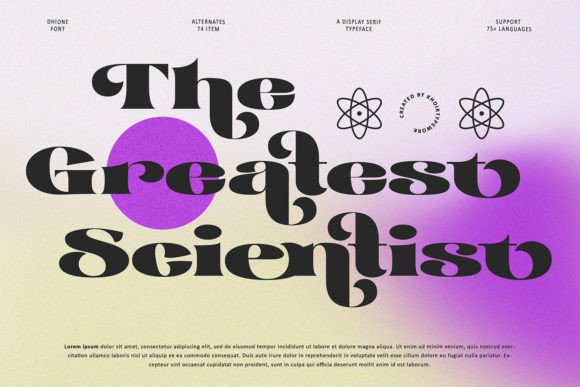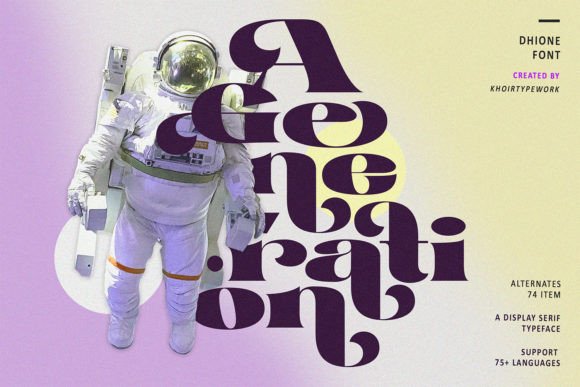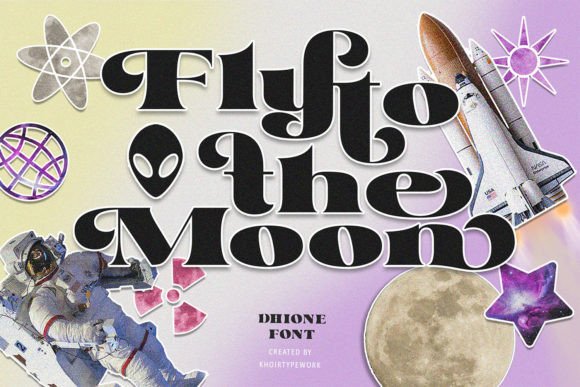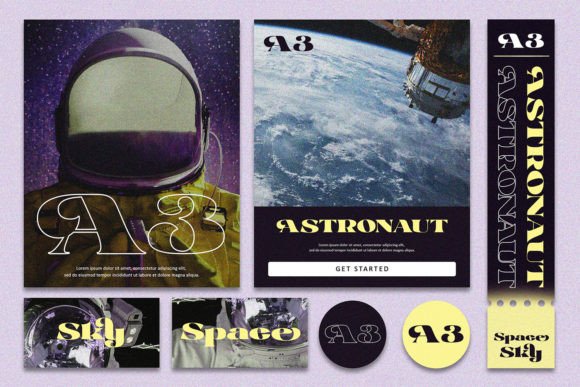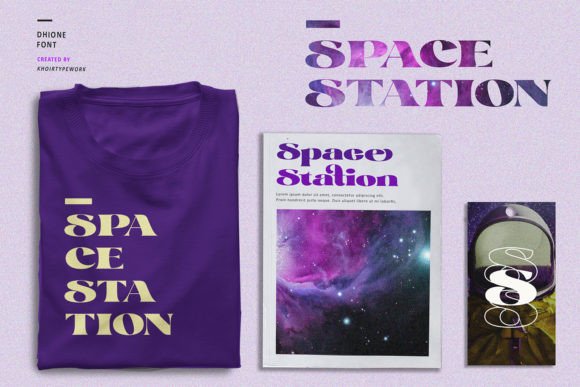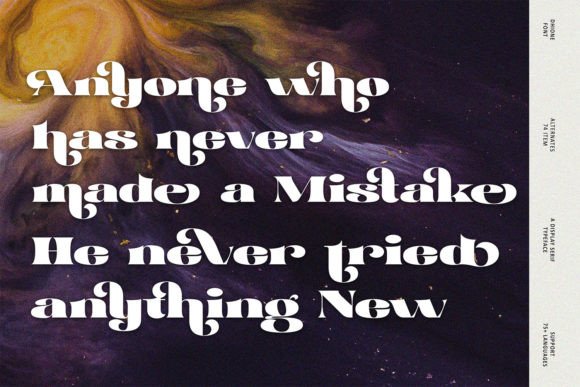
Dhione Font: Elevate Your Designs with a Chic and Bold Display Font
Are you tired of using the same old fonts in your designs? Look no further than Dhione Font, a contemporary and fresh display font that’s perfect for making your creative projects stand out. With its chic and bold style, Dhione is ideal for designers and crafters who want to add a touch of sophistication and elegance to their work.
What is Dhione Font?
Dhione Font is a modern display font that’s designed to make a statement. Its clean lines, precise curves, and bold typography make it perfect for headlines, titles, and short text passages. The font is highly versatile and can be used for a wide range of design projects, from branding and advertising to packaging and digital media.
Key Features of Dhione Font
- Chic and Bold Style: Dhione Font boasts a chic and bold style that’s perfect for making a statement in your designs.
- Contemporary and Fresh: The font’s modern design ensures that your projects look contemporary and fresh, setting them apart from the rest.
- Highly Versatile: Dhione Font can be used for a wide range of design projects, from print to digital media.
- Easily Readable: Despite its bold style, Dhione Font is easily readable, making it perfect for use in headlines, titles, and short text passages.
Why Choose Dhione Font?
There are many reasons why designers and crafters choose Dhione Font for their projects. Here are a few:
- Unique and Creative: Dhione Font offers a unique and creative way to express yourself through your designs.
- Time-Saving: With Dhione Font, you can create stunning designs in no time, saving you hours of work and effort.
- Professional-Looking Results: The font’s bold and chic style ensures that your designs look professional and polished, making them perfect for client work or personal projects.
How to Use Dhione Font in Your Designs
Using Dhione Font in your designs is easy. Here are a few tips to get you started:
- Pair it with Other Fonts: Dhione Font pairs well with other fonts, so feel free to experiment with different combinations to create a unique look.
- Use it for Headlines and Titles: The font’s bold style makes it perfect for use in headlines and titles, where you want to grab the reader’s attention.
- Experiment with Colors and Textures: Dhione Font looks great in a variety of colors and textures, so don’t be afraid to experiment and find the perfect combination for your design.
In conclusion, Dhione Font is a chic and bold display font that’s perfect for designers and crafters who want to elevate their designs. With its contemporary and fresh style, highly versatile design, and easily readable typography, Dhione Font is the perfect addition to any creative project. So why wait? Add Dhione Font to your design arsenal today and start creating stunning designs that stand out from the rest.
Tips and Tricks for Using Dhione Font
Here are a few tips and tricks for using Dhione Font in your designs:
- Use it Sparingly: While Dhione Font is bold and eye-catching, it’s best to use it sparingly to avoid overwhelming the reader.
- Experiment with Different Sizes: The font’s bold style looks great in a variety of sizes, so experiment with different sizes to find the perfect fit for your design.
- Pay Attention to Kerning: As with any font, pay attention to kerning to ensure that your text looks professional and polished.